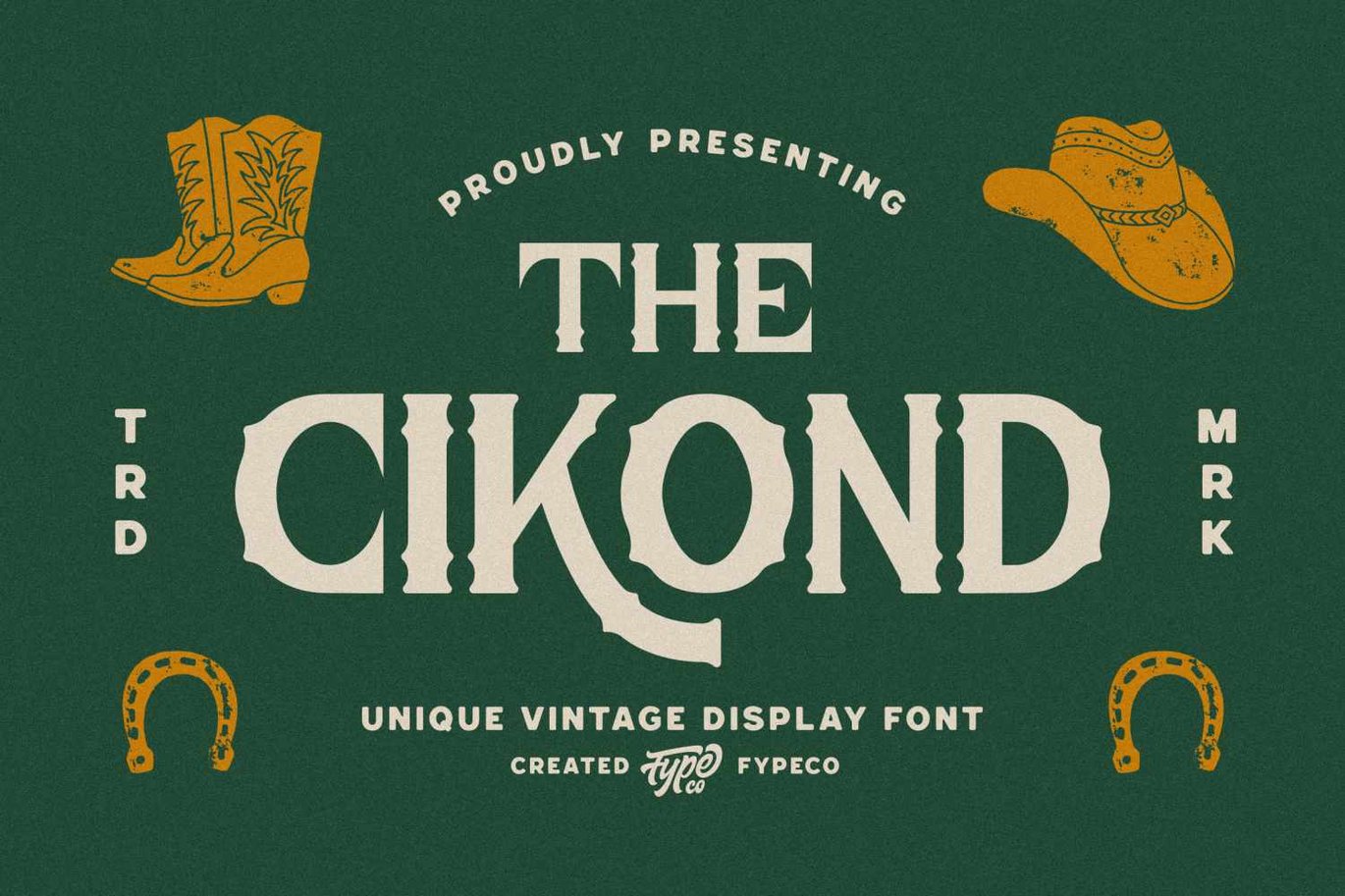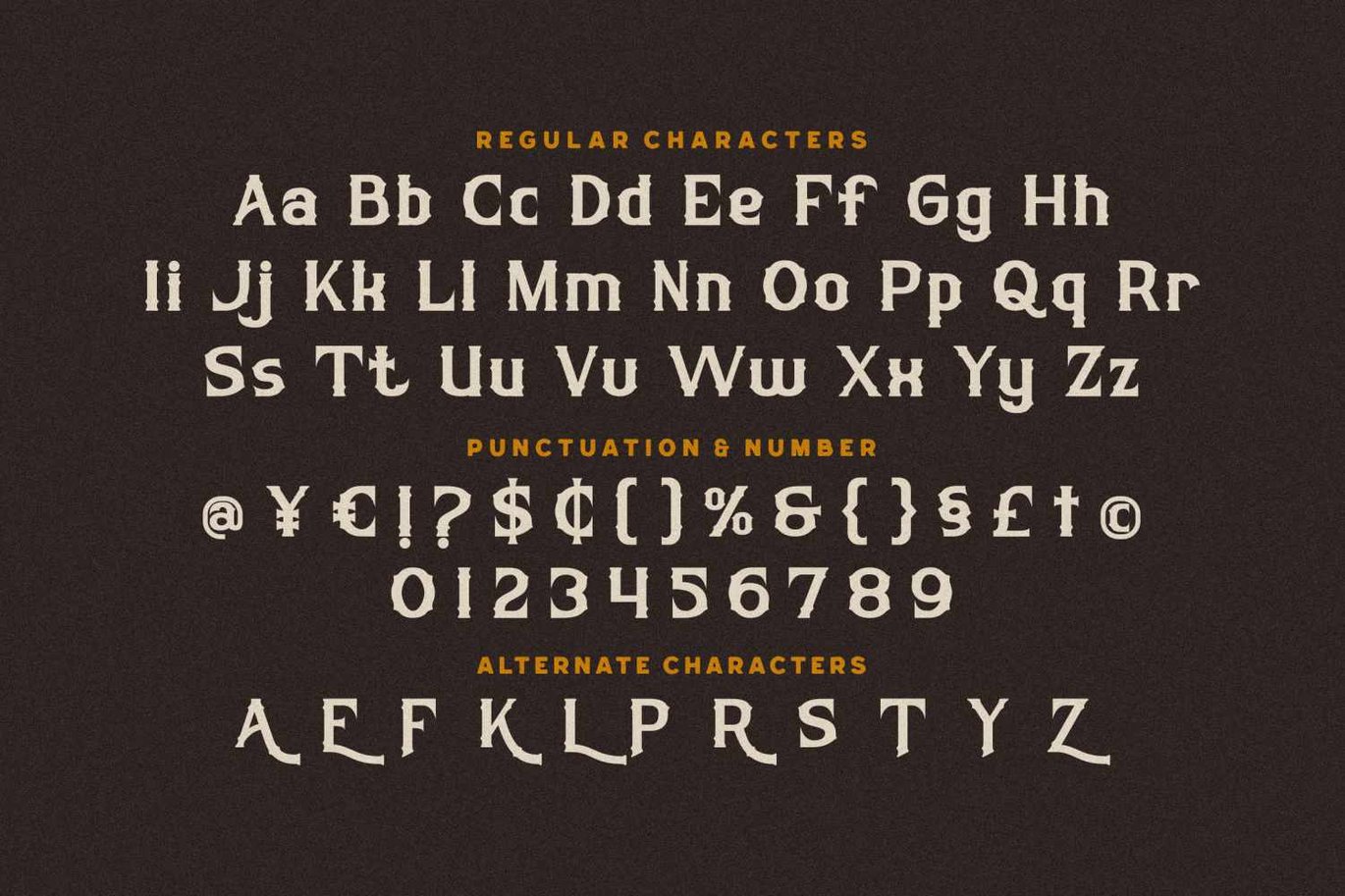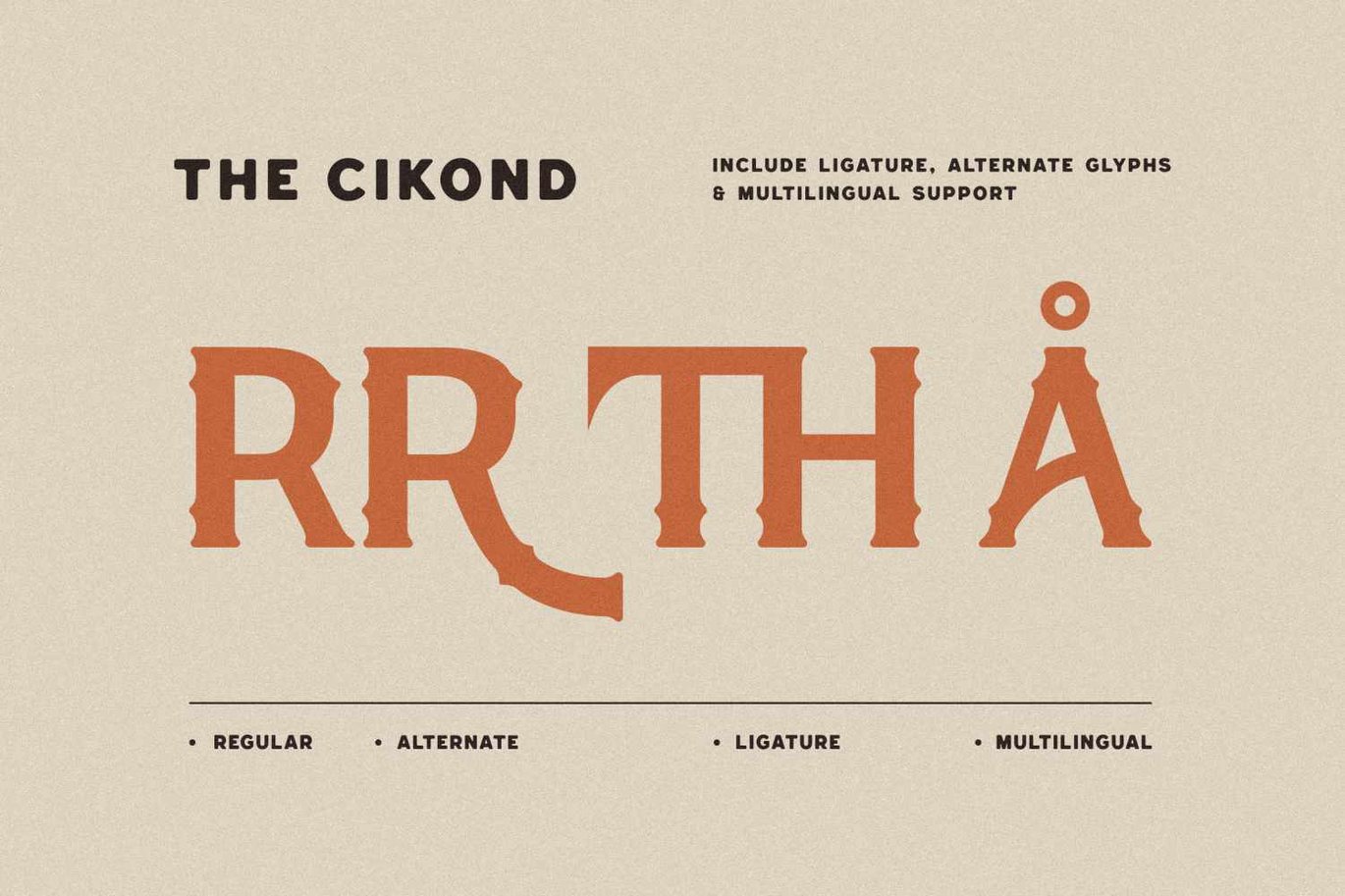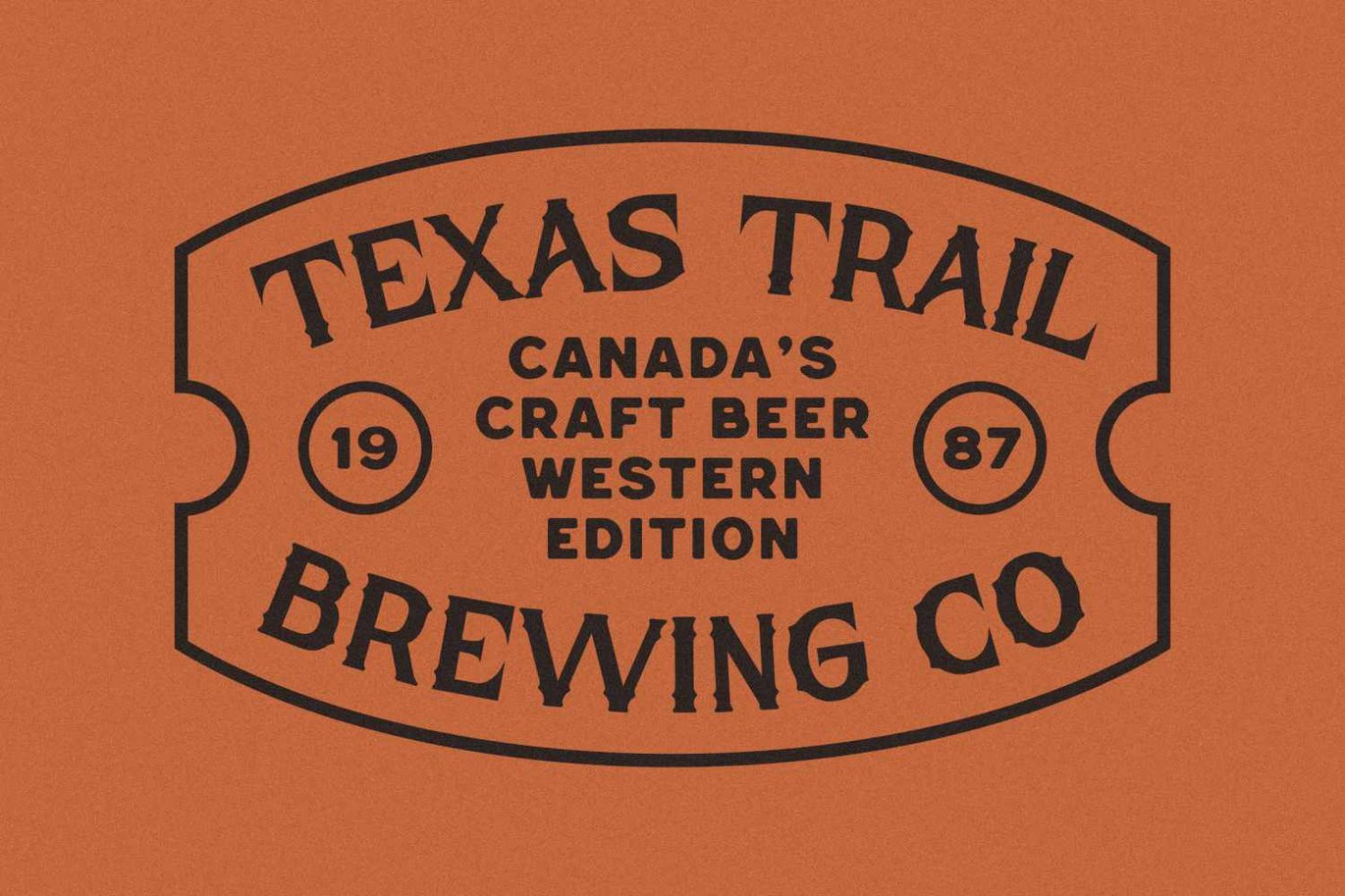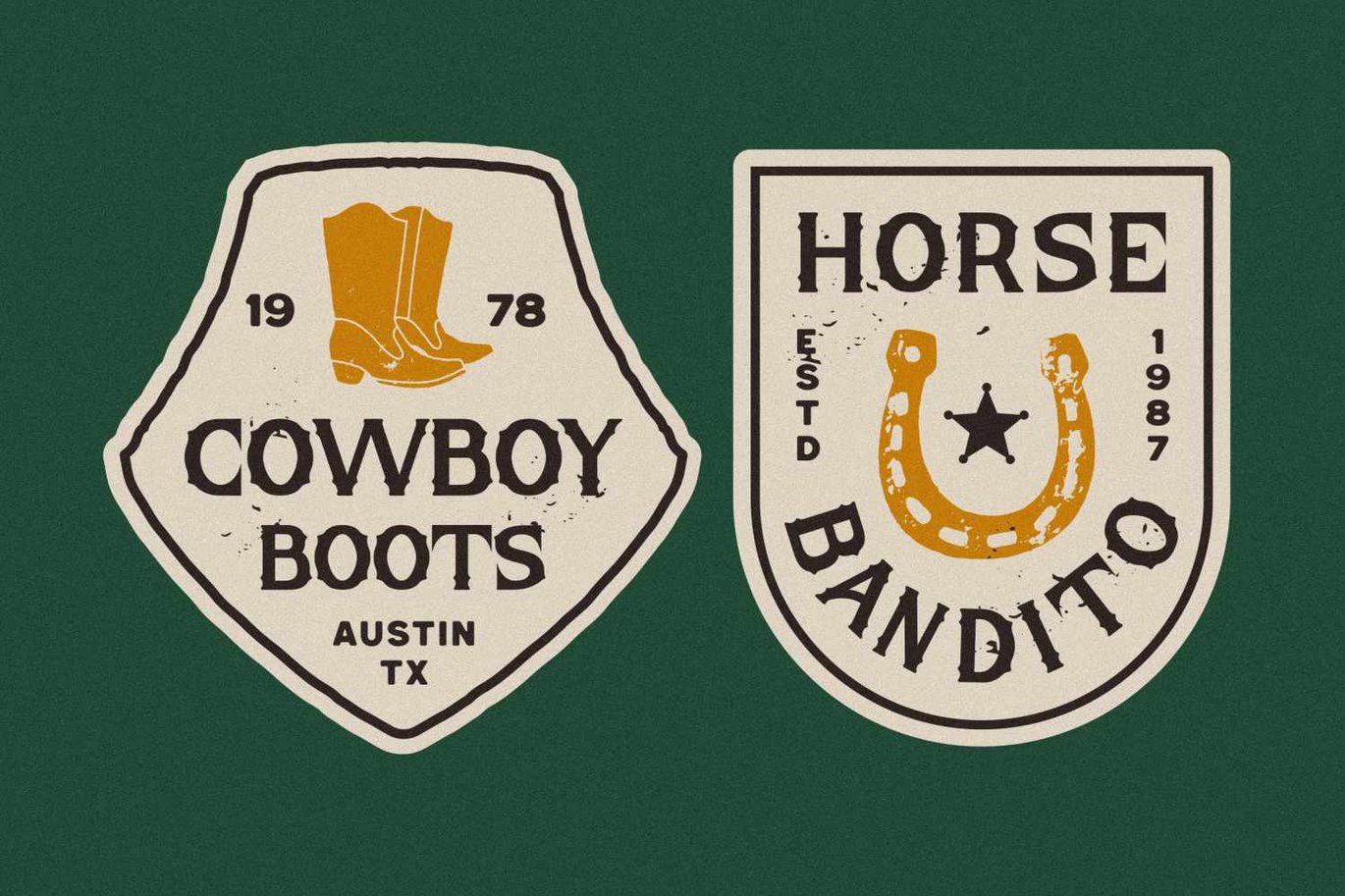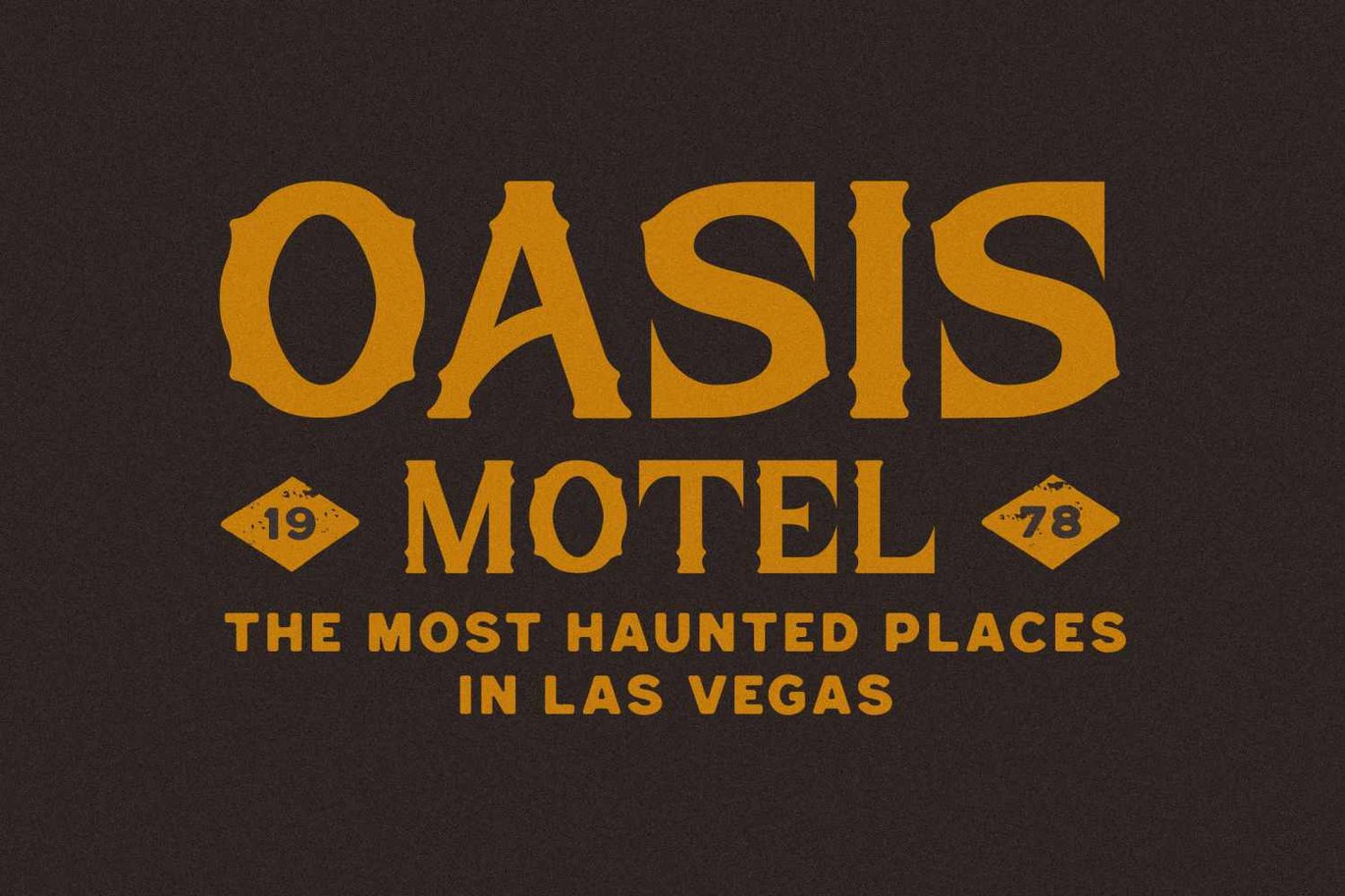
Cikond – Medieval Display Font
Cikond is a vintage display font inspired by cowboy sign. Cikond is perfect for people looking for vintage aesthetic and organic feel or design needs with a touch of classic western. This handmade font is wonderful to use in logos, designs, labels, clothes or anything you want. Play with all the variations and discretional ligatures.
Font Features
-Uppercase
-Lowercase
-Alternatives
-Ligatures
-Numerals & Punctuation
-Multilingual Support